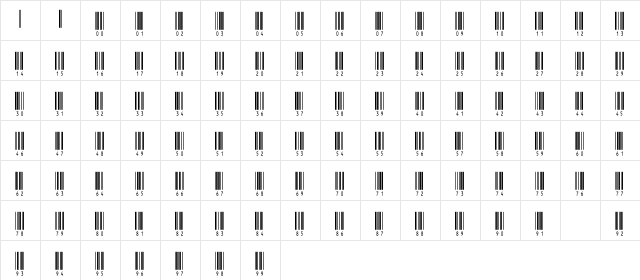
Complete IntHrP60DlTt Normal glyph index. Displaying only characters natively supported by IntHrP60DlTt Normal font.
IntHrP60DlTt is a composed and adaptable typeface that performs quietly and consistently across a wide range of design contexts.